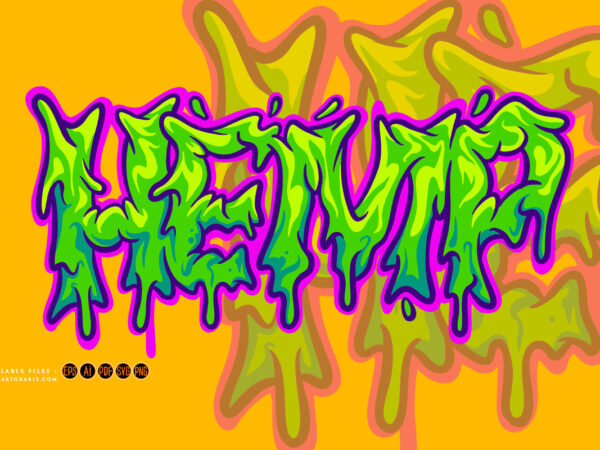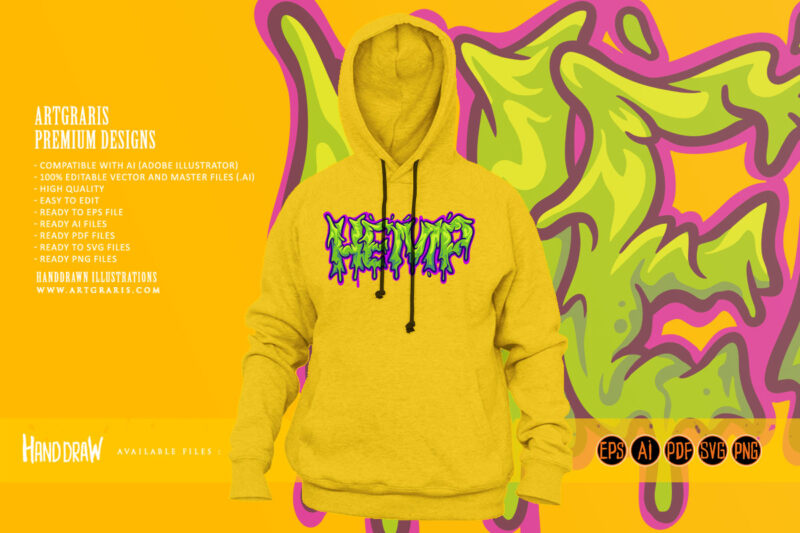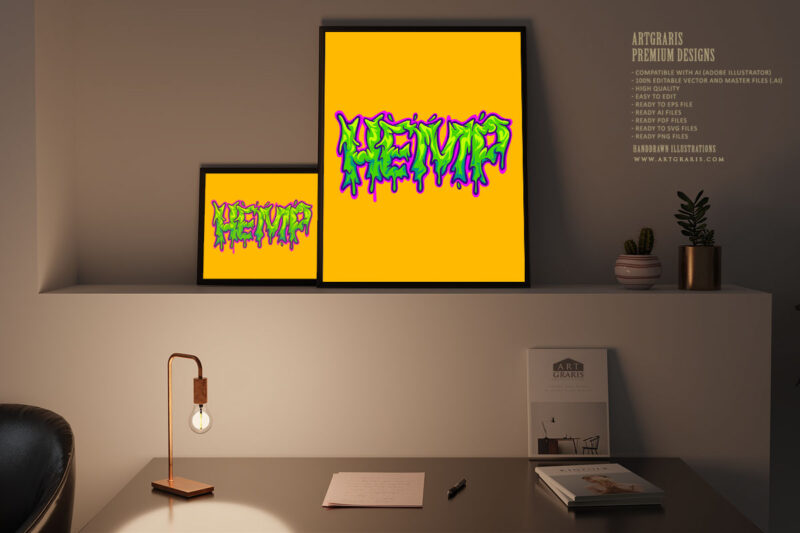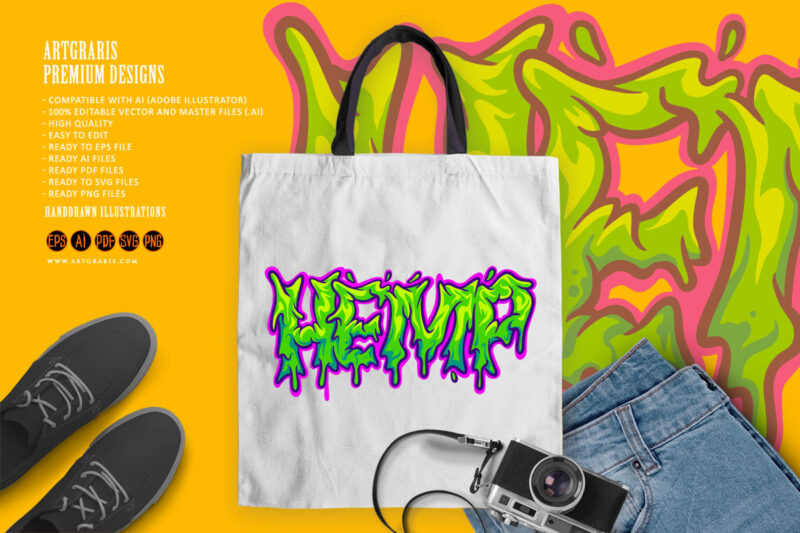
Hemp word typeface with melted text effect illustrations graphic t shirt
Vector illustration Hemp word typeface with melted text effect suitable for various purposes, such as Illustration on Merchandise T-shirts, Tote Bags, stickers, banners or Decorations, greeting, Postcards, flyers, posters, and other design products.